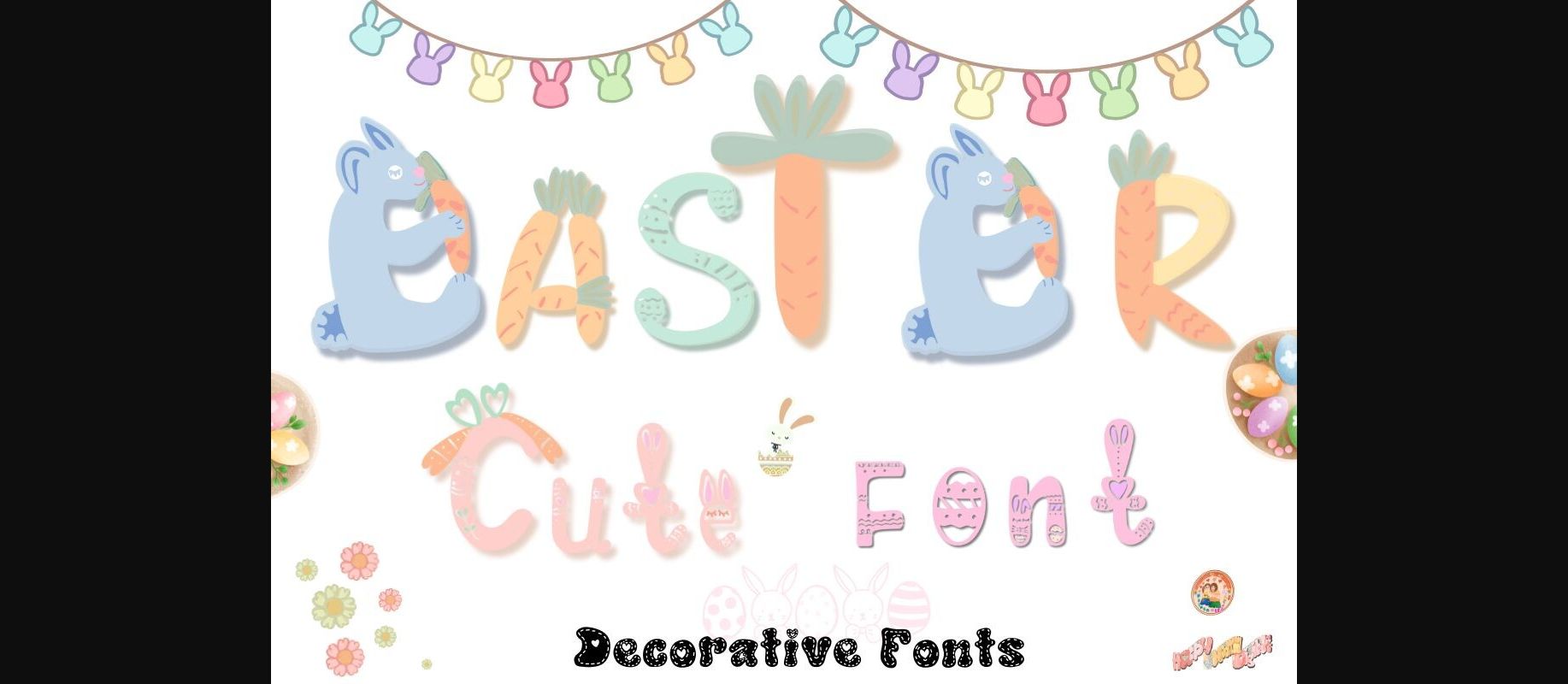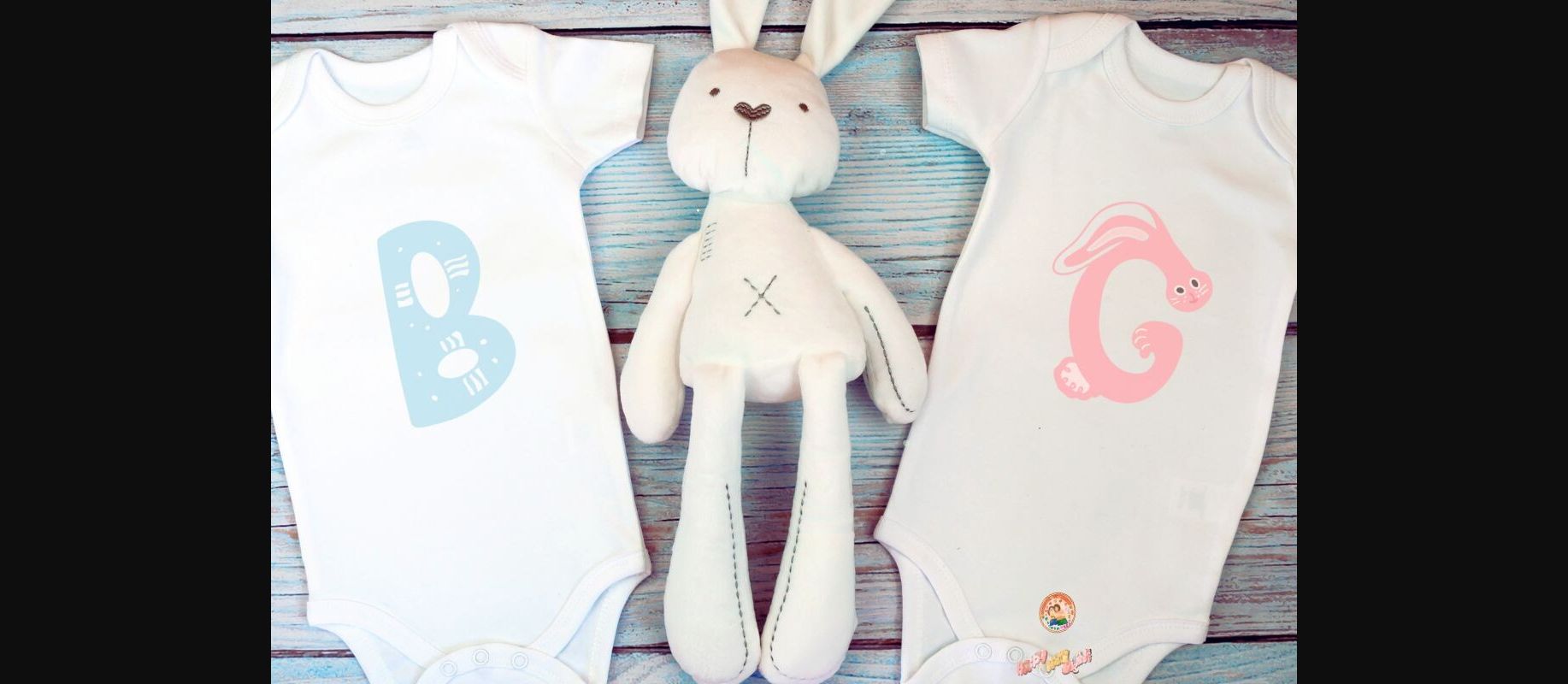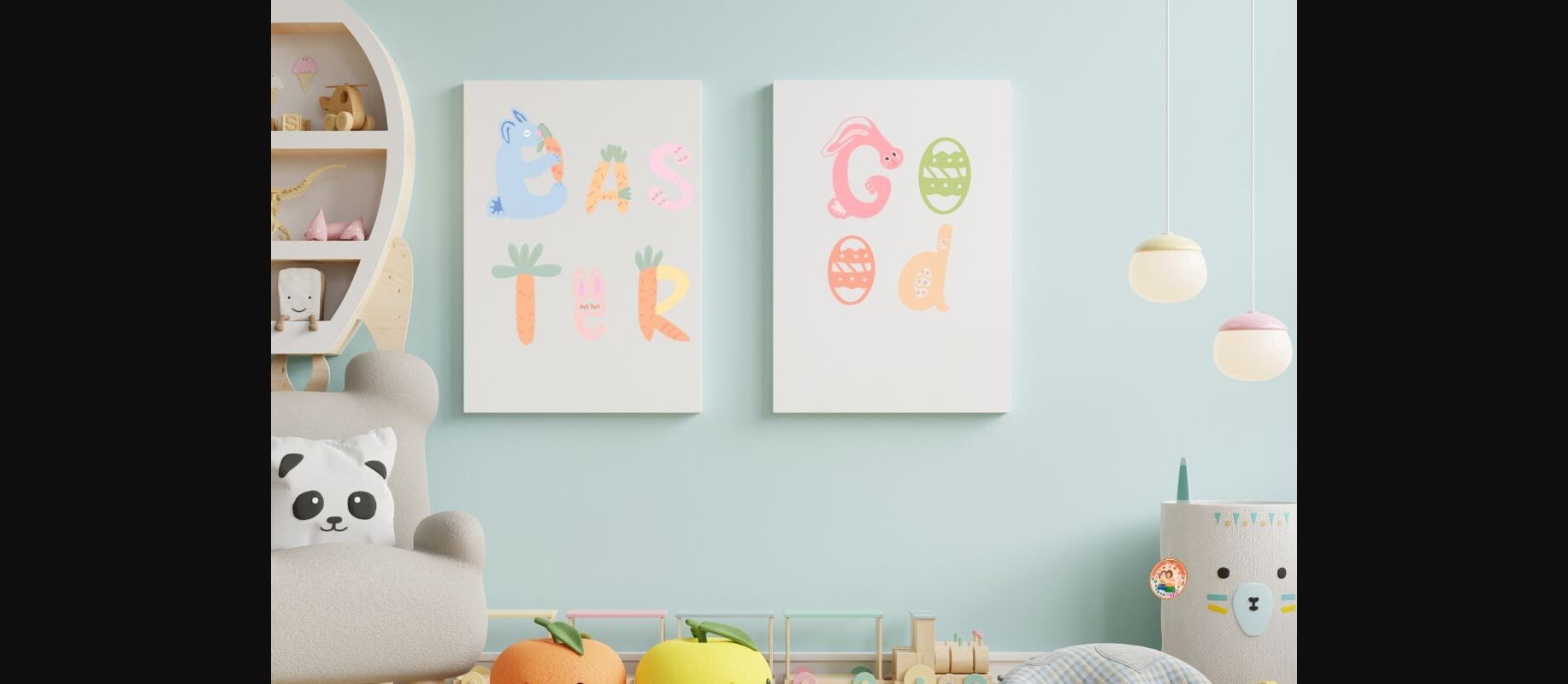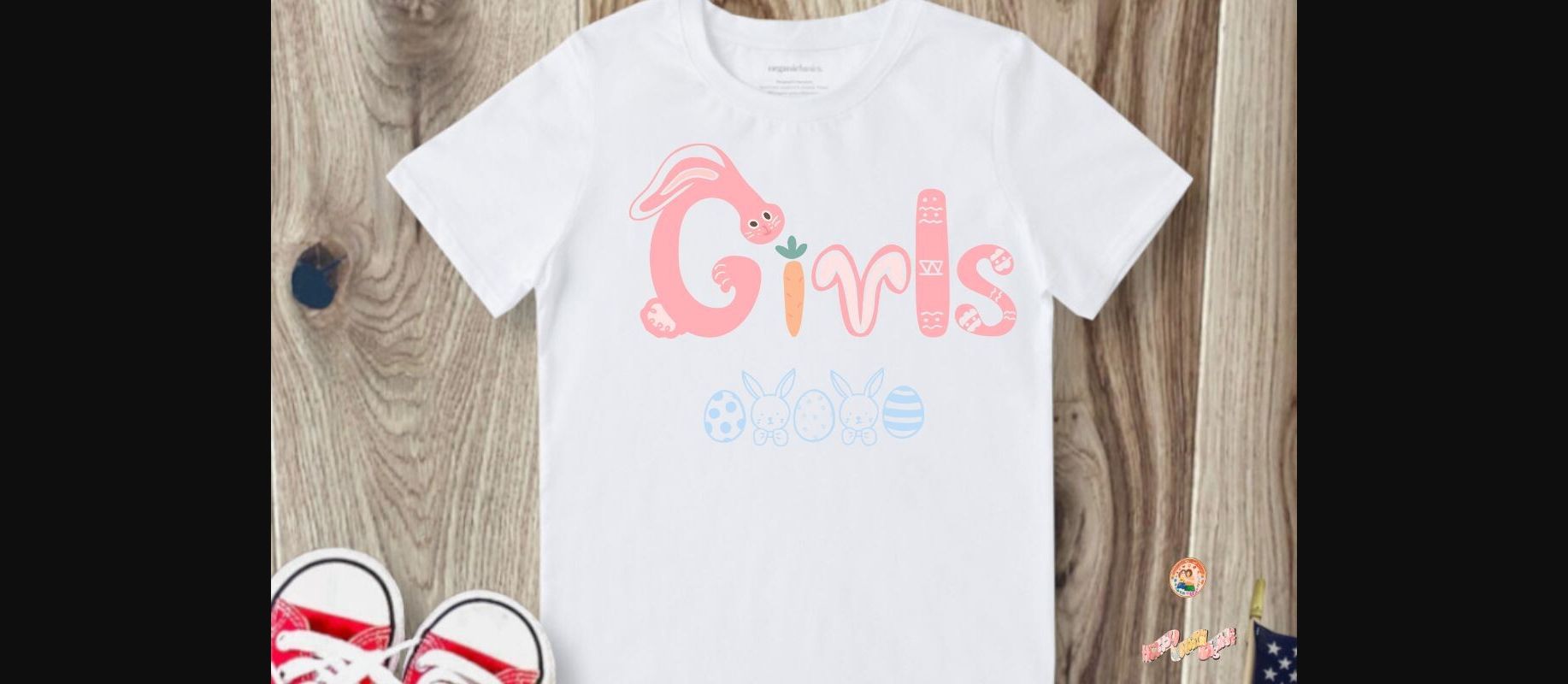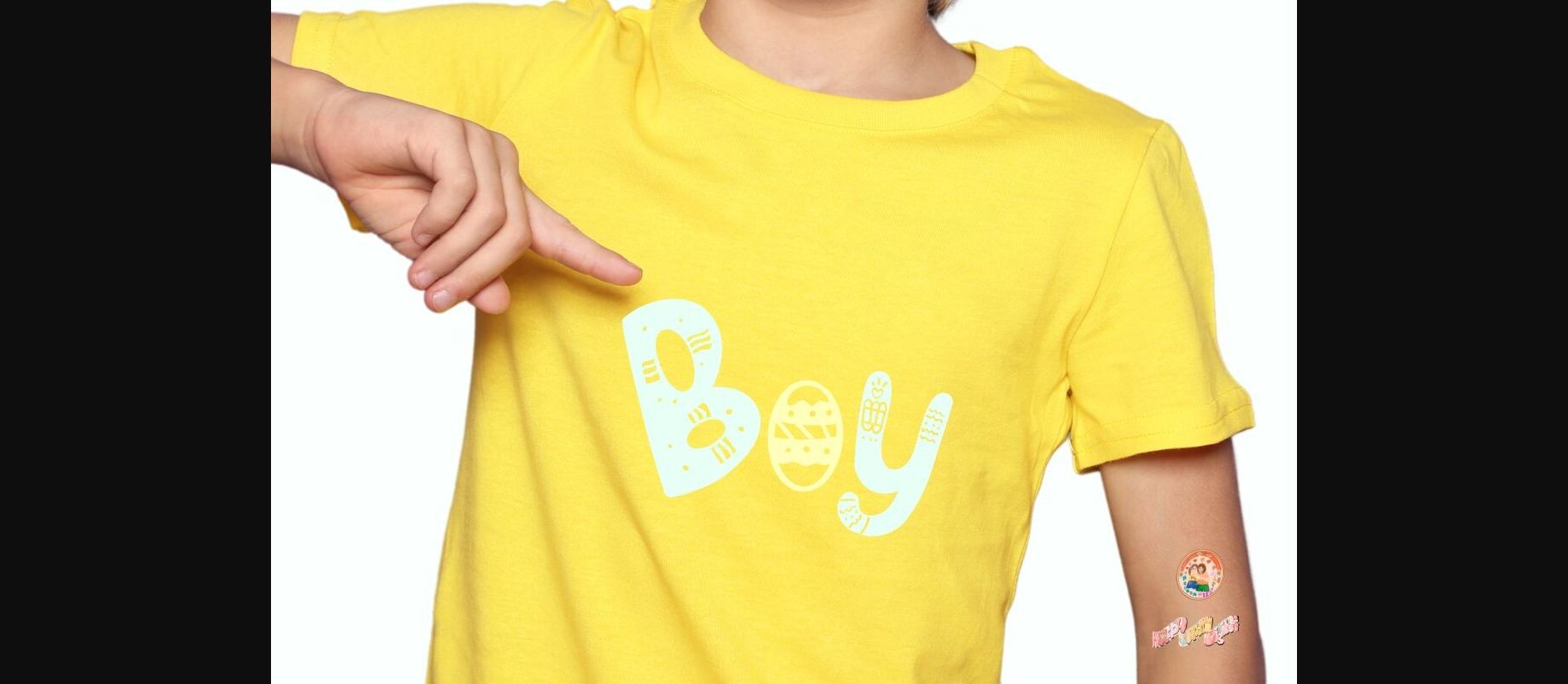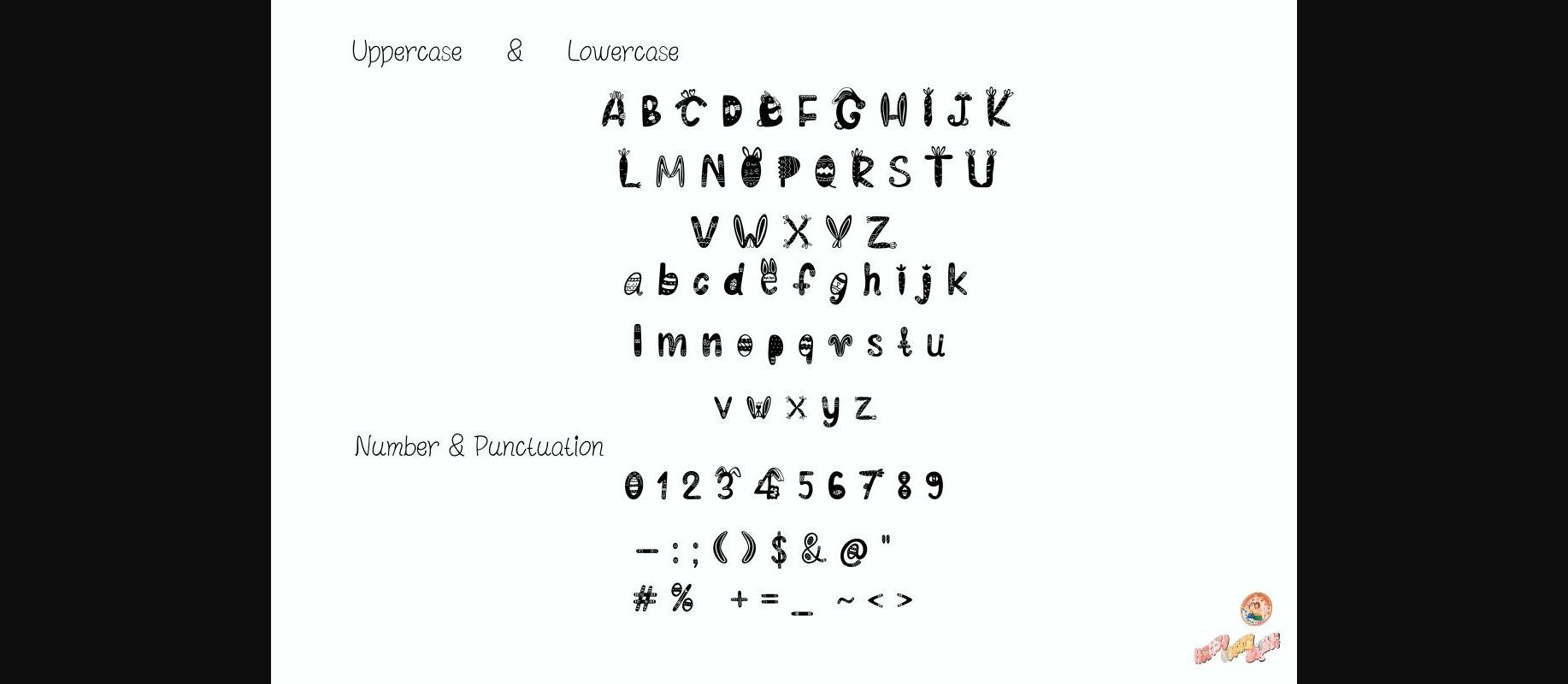
Easter Font
Introducing ‘Easter Cute ’ font, the Design each letter in a playfull Design. your holiday designs with festive cheer! This decorative Christmas typeface features delightful reindeer elements integrated into each letter. Whether you’re creating holiday cards, gift tags, or seasonal banners,t-shirt and Many more children’s products
‘Easter Cute ’ adds a whimsical touch of reindeer magic to your text, making it the ideal choice for spreading joy during the holiday season.